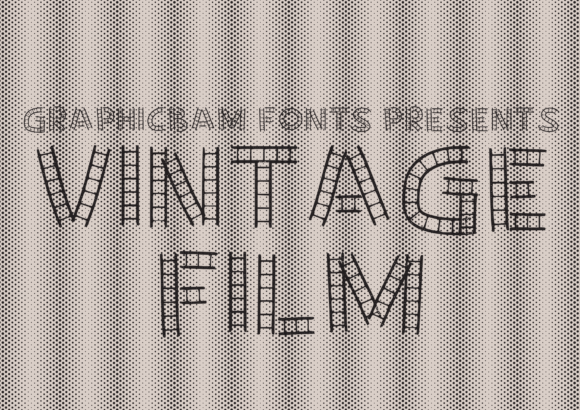
Step into a world of cinematic nostalgia with Vintage Film Font, a decorative font family that transports you back to the golden age of silver screens. This unique font invites you to relive the charm of classic films, with its characters meticulously crafted from the texture of old cinema film. It's a font that sparks imagination and adds a touch of whimsy to your designs.
With Vintage Film Font, your designs will exude an aura of vintage elegance and timeless charm. Its distinct aesthetic is reminiscent of flickering projectors and grainy film reels, evoking a sense of nostalgia and sentimentality. Unleash your creativity and explore the endless possibilities of this captivating font, from creating eye-catching posters and flyers to designing heartfelt thank-you cards with a personal touch.
Whether you're a seasoned designer or just starting out, Vintage Film Font is easy to use and versatile, catering to a wide range of projects. Its playful and distinctive appearance adds a spark of individuality to any design, making it a must-have tool for graphic designers, crafters, and anyone seeking to add a unique flair to their work.
Dive into the world of vintage cinema and let your designs speak volumes. Download Vintage Film Font today and embark on a journey through time, where memories and nostalgia come alive in every stroke of the pen. Experience the magic of this font and let your creativity soar.